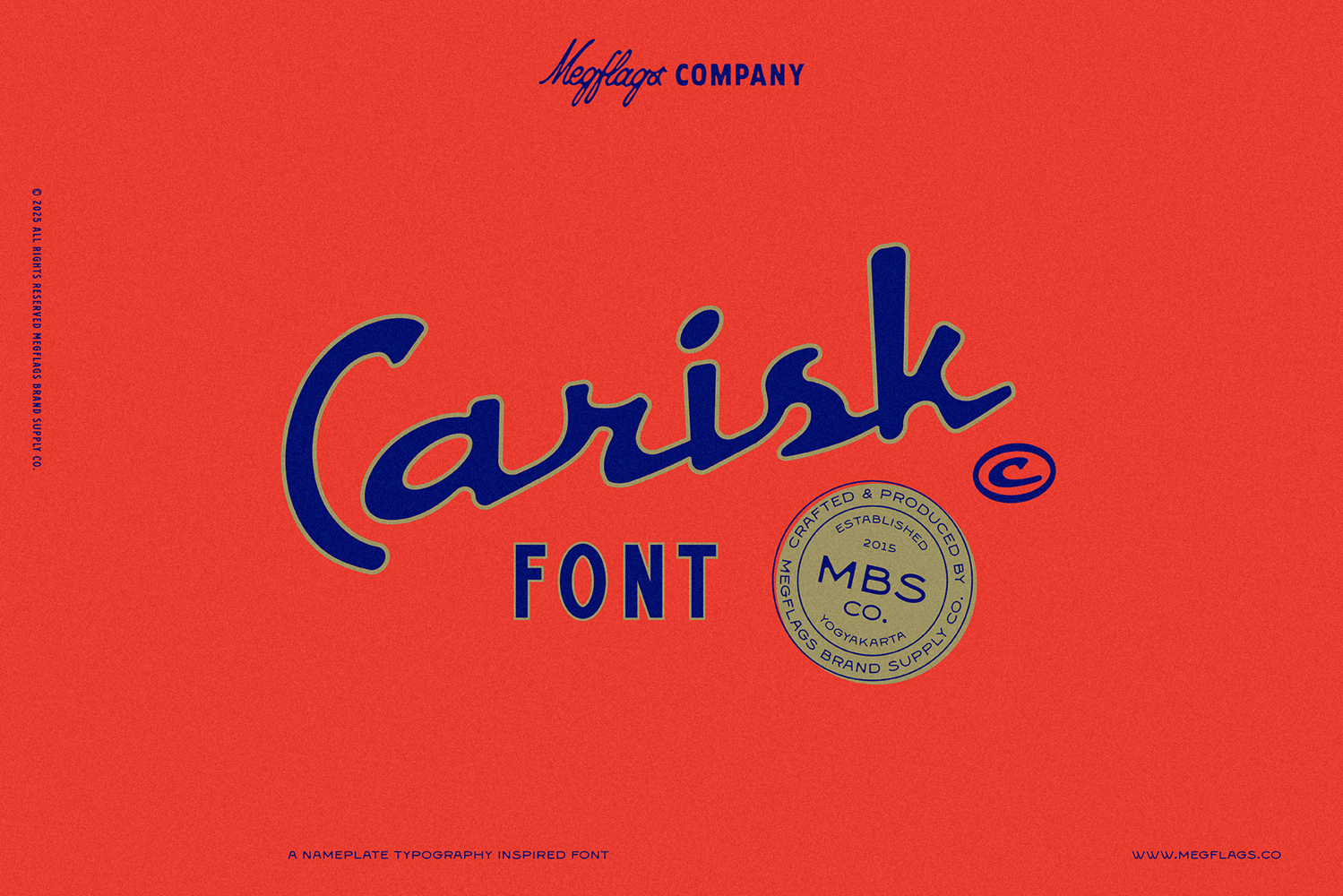
Carisk
Carisk is a script typeface inspired by the timeless beauty of vintage nameplates found on old buildings, classic cars, and industrial machinery. It captures that iconic metal-cast charm and bold lettering. It's a font made for designers who appreciate nostalgia but still want something clean and usable today. Enjoy!
Carisk